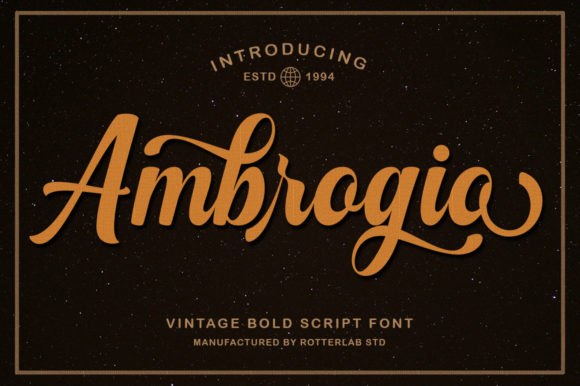
Introducing Ambrogio Font: The Epitome of Sophistication and Boldness
In the realm of typography, few fonts have managed to strike a balance between sophistication and boldness. However, Ambrogio Font is an exception, offering a unique blend of elegance and confidence that makes it perfect for a wide range of creative projects. In this article, we’ll delve into the world of Ambrogio Font, exploring its features, benefits, and applications, as well as provide insights into its versatility and usability.
What Makes Ambrogio Font Stand Out?
Ambrogio Font is a handwritten font that exudes sophistication and boldness, making it an excellent choice for designers and crafters looking to add a touch of elegance to their projects. Its unique characteristics include:
- Sophistication: Ambrogio Font boasts a refined and polished appearance, perfect for projects that require a high level of sophistication.
- Boldness: The font’s bold strokes and confident lines make it ideal for delivering messages with authority and authenticity.
- Handwritten: The font’s handwritten nature adds a touch of warmth and personality to any project.
These features combined make Ambrogio Font an excellent choice for a wide range of applications, from cards and branding to labels and more.
Unlocking the Full Potential of Ambrogio Font
Ambrogio Font’s versatility is one of its most significant advantages. Its sophisticated and bold design makes it suitable for various creative projects, including:
- Cards: Create stunning greeting cards, invitations, and postcards that exude elegance and sophistication.
- Branding: Use Ambrogio Font to develop a strong brand identity that conveys confidence and authenticity.
- Labels: Design eye-catching labels and packaging that stand out from the competition.
- Stationery: Elevate your stationery designs with Ambrogio Font’s refined and polished appearance.
Whether you’re a designer, crafter, or DIY enthusiast, Ambrogio Font offers endless possibilities for creative expression.
Technical Details: PUA Encoding and Glyphs
Ambrogio Font is PUA (Private Use Area) encoded, which means that it offers a vast range of glyphs and ligatures that can be accessed with ease. This feature makes it incredibly versatile and user-friendly.
- PUA Encoding: Allows for easy access to a wide range of glyphs and ligatures.
- Glyphs and Ligatures: Offers a vast array of alternative characters, swashes, and ligatures to enhance your designs.
This technical detail is particularly important for designers and crafters who value flexibility and creative freedom.
Getting the Most Out of Ambrogio Font
To unlock the full potential of Ambrogio Font, here are some tips and tricks to keep in mind:
- Experiment with glyphs and ligatures: Take advantage of the font’s PUA encoding and explore the various glyphs and ligatures to add depth and personality to your designs.
- Mix and match: Combine Ambrogio Font with other fonts to create unique and visually appealing typography.
- Pay attention to spacing: Adjust the spacing between letters and words to create a harmonious and balanced design.
By following these tips, you’ll be able to harness the full creative potential of Ambrogio Font and produce stunning designs that showcase your skills.
In conclusion, Ambrogio Font is a sophisticated and bold handwritten font that offers a unique blend of elegance and confidence. Its versatility, technical features, and creative possibilities make it an excellent choice for designers, crafters, and DIY enthusiasts. Whether you’re looking to create stunning cards, develop a strong brand identity, or design eye-catching labels, Ambrogio Font is the perfect tool for the job.